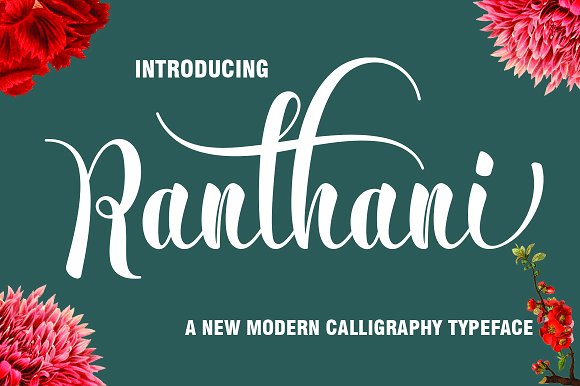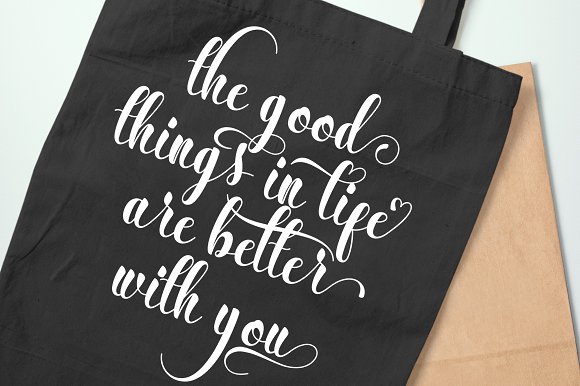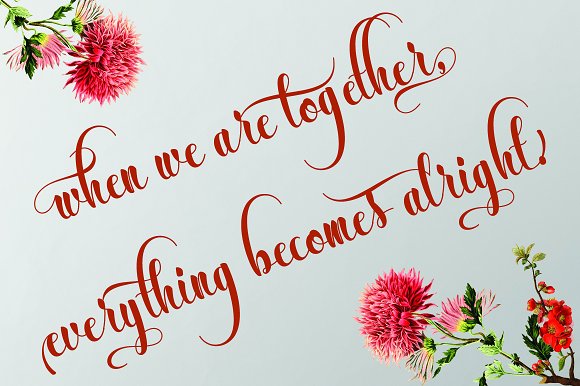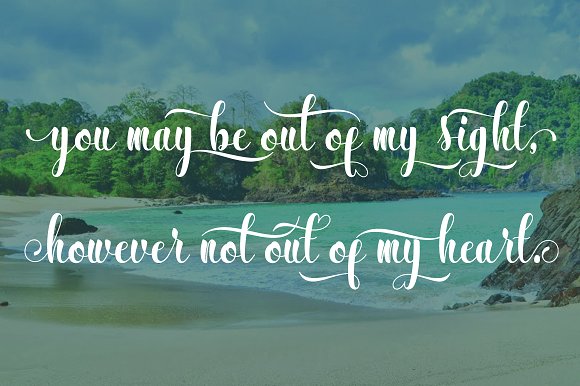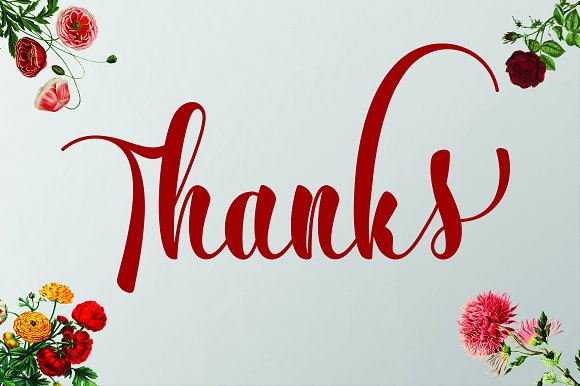
HomeScript FontsRanthani Font Script Fonts Ranthani Font FacebookXPinterestWhatsApp Ranthani Font Poster 2 Ranthani Font Poster 3 Ranthani Font Poster 4 Ranthani Font Poster 5 About Ranthani Font Ranthani is a handwritten calligraphy font. It’s versatile and has a expressive look. DOWNLOAD ON CREATIVE FABRICAThis font is sold and delivered by Creative Fabrica. Font Canyon may earn a commission if you buy through this link. People also explored Bintang Stone Duo Font Water White Font Jaeggers Font Verathrine Font Antebas Font Wild Life Font Writing Font AZN Knuckles Varsity Font Mars Project Font 599 0 TagsRanthani Font Previous articleMoscato FontNext articleCastle Combe Font LEAVE A REPLY Cancel reply Comment: Please enter your comment! Name:* Please enter your name here Email:* You have entered an incorrect email address! Please enter your email address here Website: Save my name, email, and website in this browser for the next time I comment. Personal Use Free Autines Personal Use Free Read more about this font Royal Bengal Tiger Personal Use Free Read more about this font Cretino Personal Use Free Read more about this font Pinky Personal Use Free Read more about this font BLOG Top 7 Google Fonts Alternatives for Faster and Privacy-Friendly Web Design (2025) Top 7 Google Fonts Alternatives for Faster and Privacy-Friendly Web Design (2025) When it comes to web typography, Google Fonts has long been the go-to... To increase your work productivity, choose the most readable fonts. 5 Fonts That Will Dominate Design Trends in 2026 Where to Buy American Fonts Online in 2024